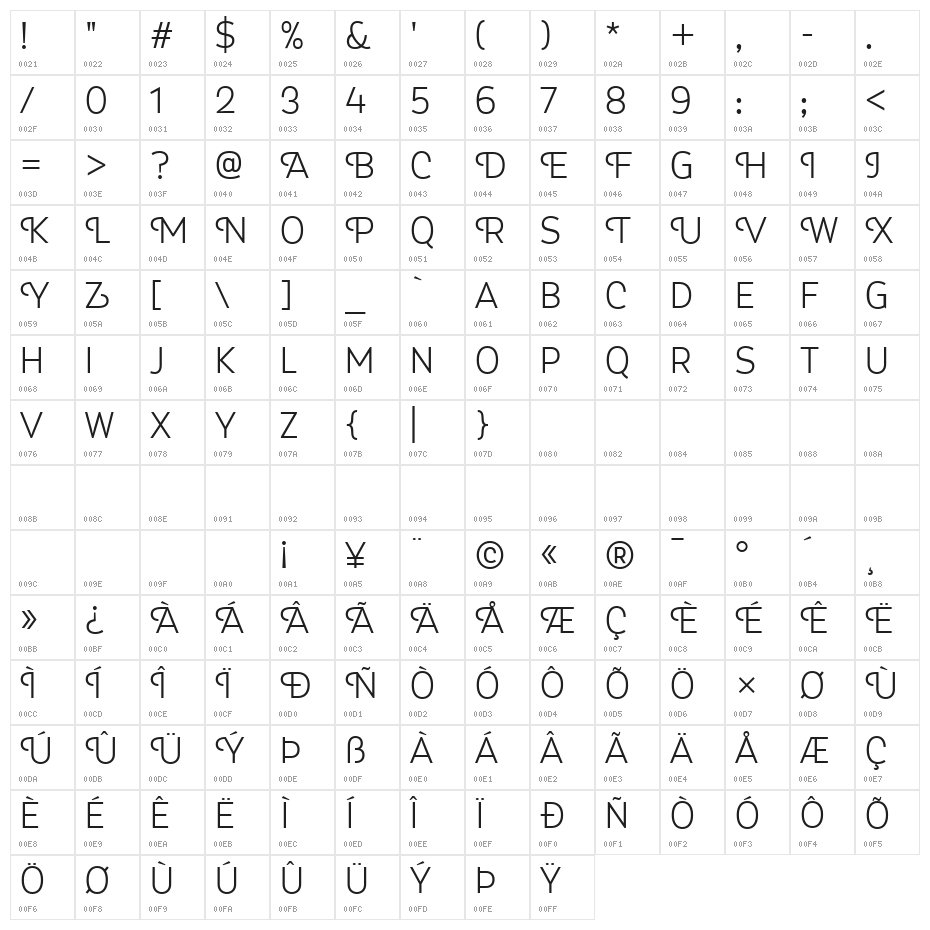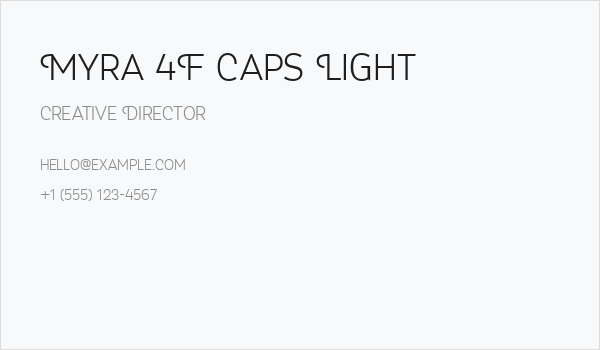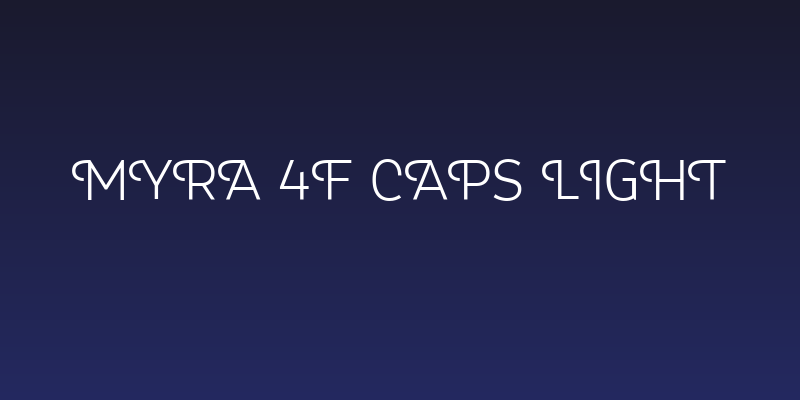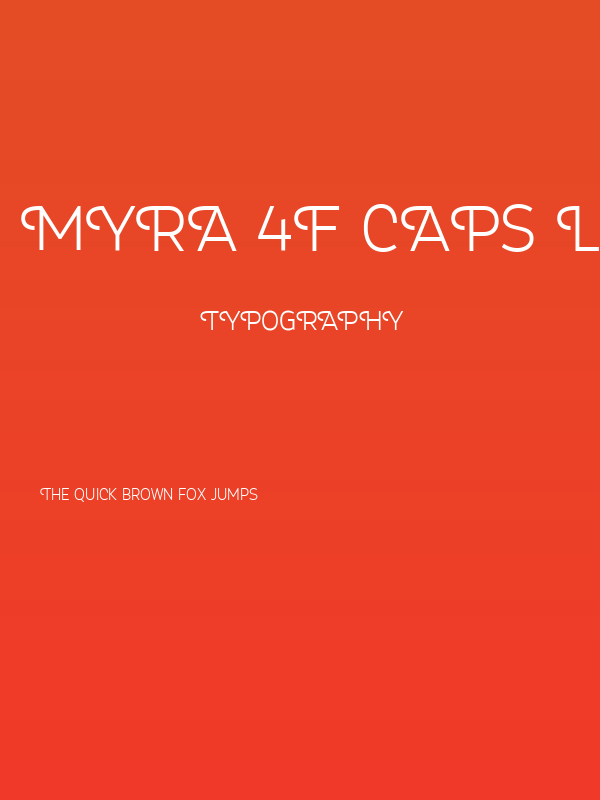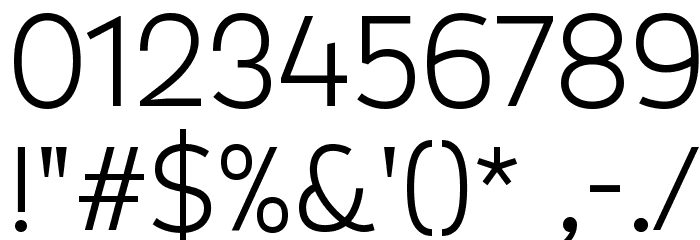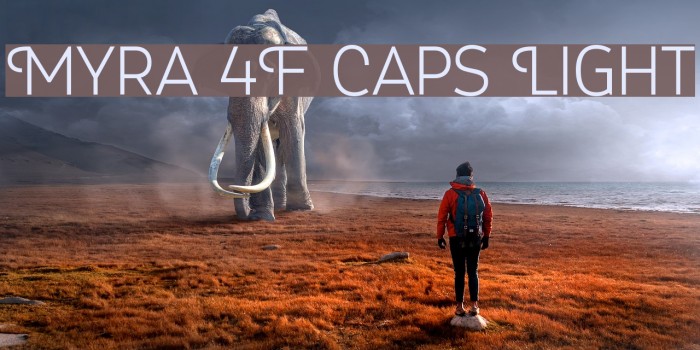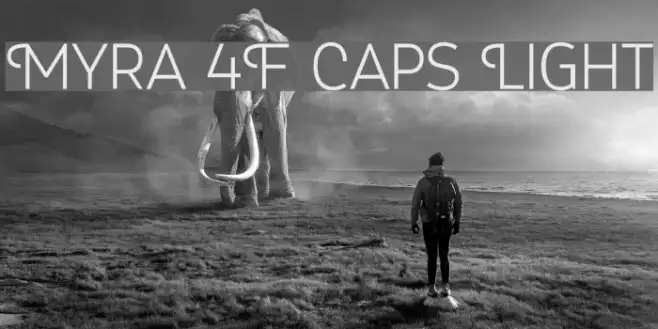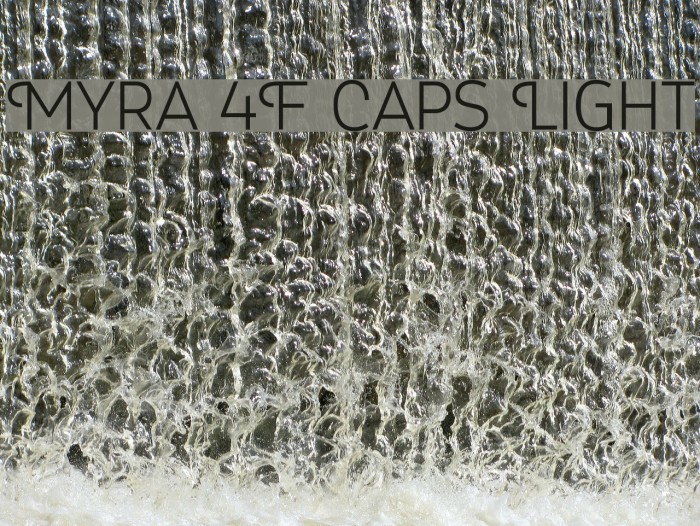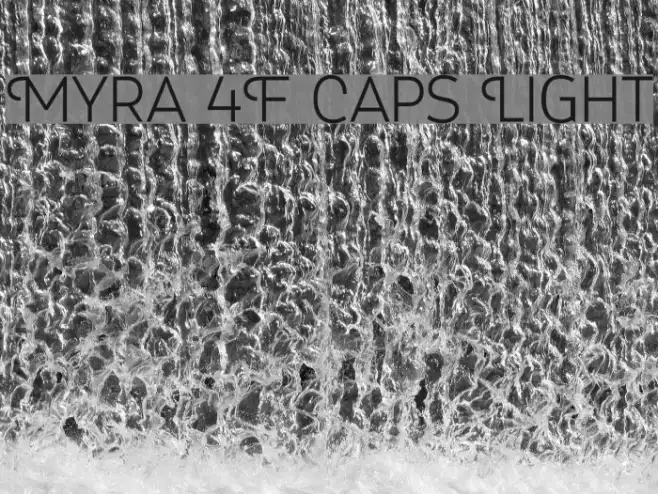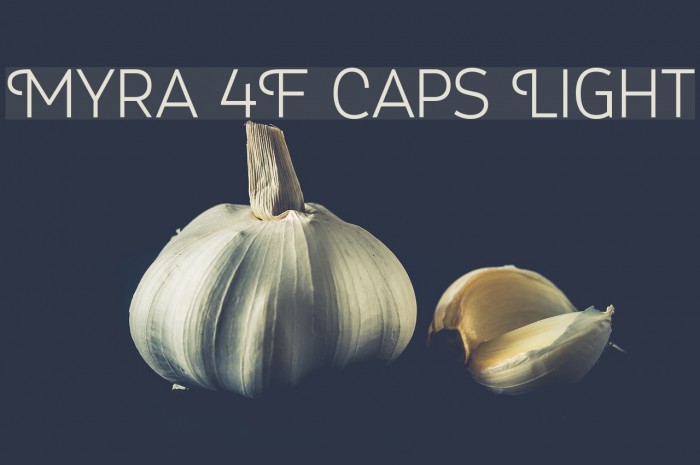
Myra 4F Caps Light Font
Myra 4F Caps Light Description
This font features a clean and modern design with a focus on readability and simplicity. The uppercase letters have a unique, slightly curved style that adds a touch of elegance, while the lowercase letters maintain a straightforward and clear appearance. The numbers are well-proportioned and align perfectly with the overall aesthetic, making them easy to read. Special characters are designed to complement the letters and numbers, ensuring a cohesive look across all elements. The font's light weight and open character spacing contribute to its airy and approachable feel, making it suitable for a variety of design applications.
| Proposed Projects | Ideal for branding, editorial design, web design, and advertising materials. |